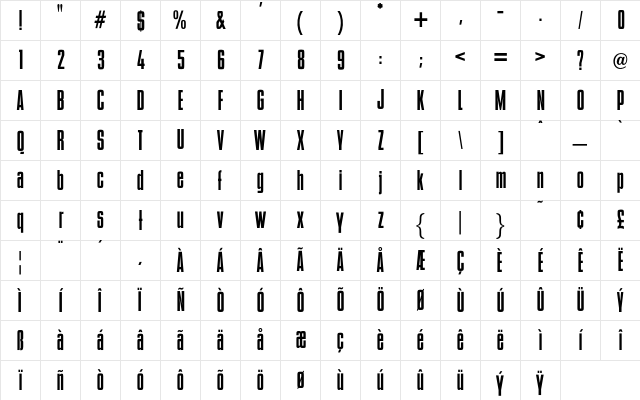
OPBinderStyle Regular Free Font
OPBinderStyle Regular
Foundry: Castcraft Software, Inc
Design Context for OPBinderStyle
OPBinderStyle is a composed and adaptable typeface that performs quietly and consistently across a wide range of design contexts.
Who designed the OPBinderStyle Regular font?